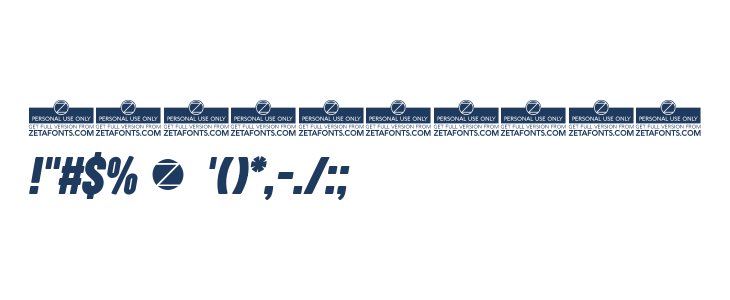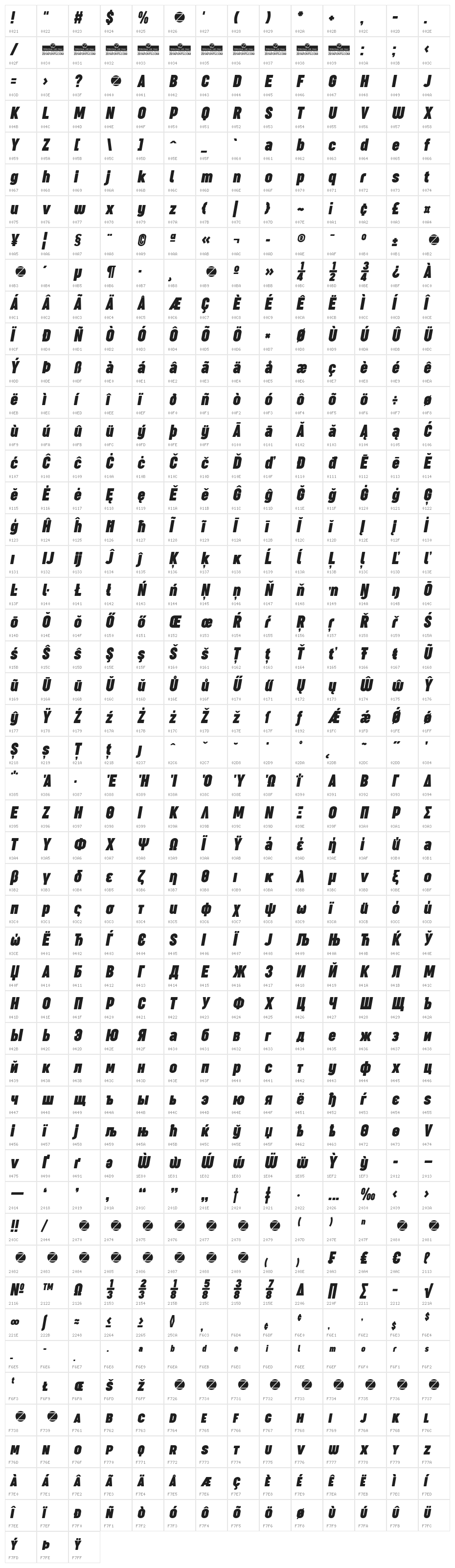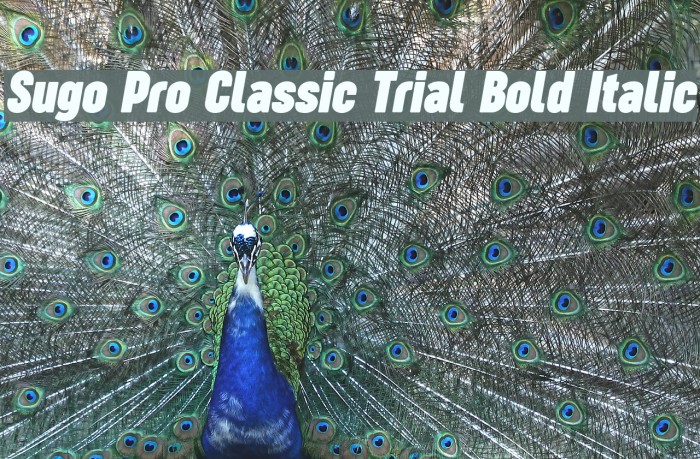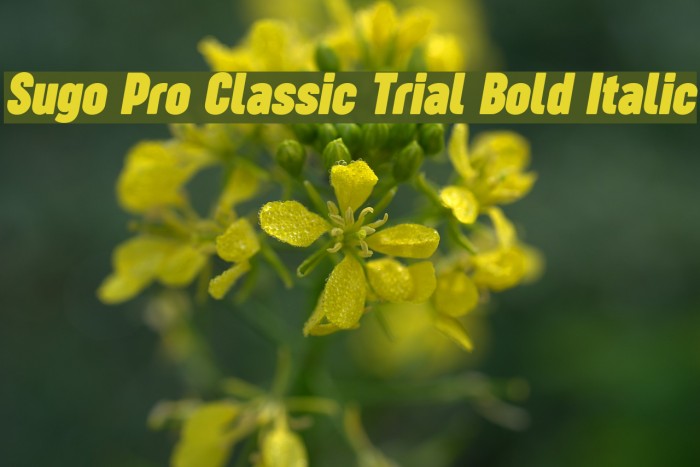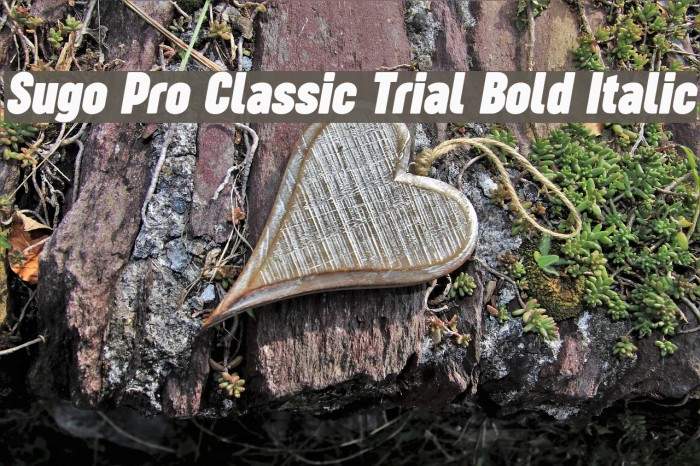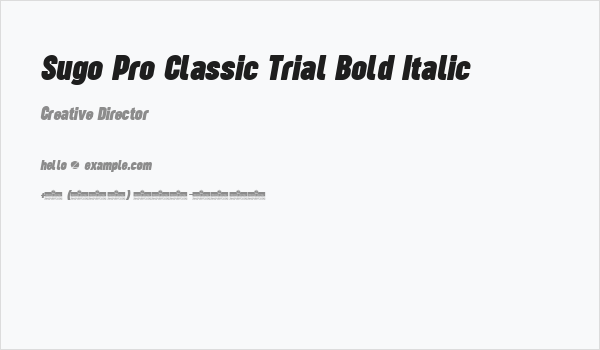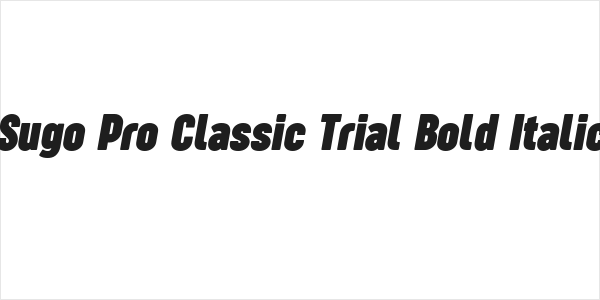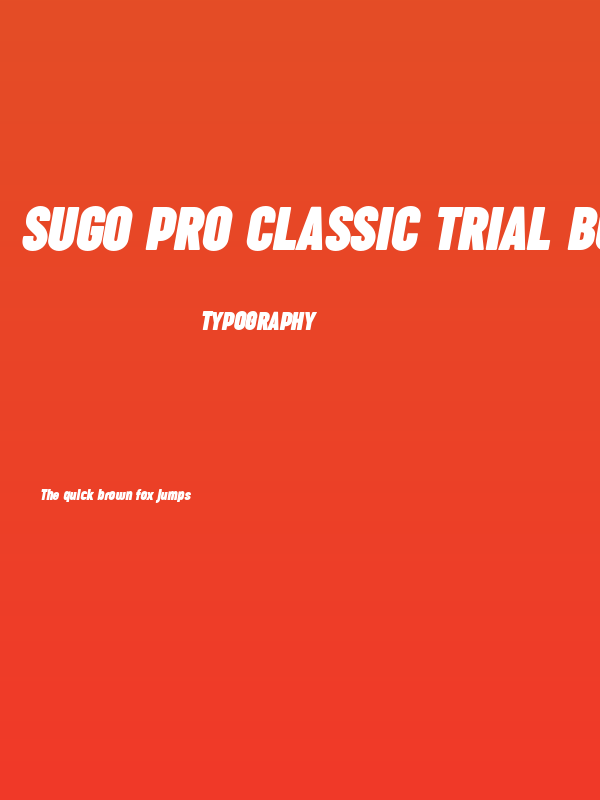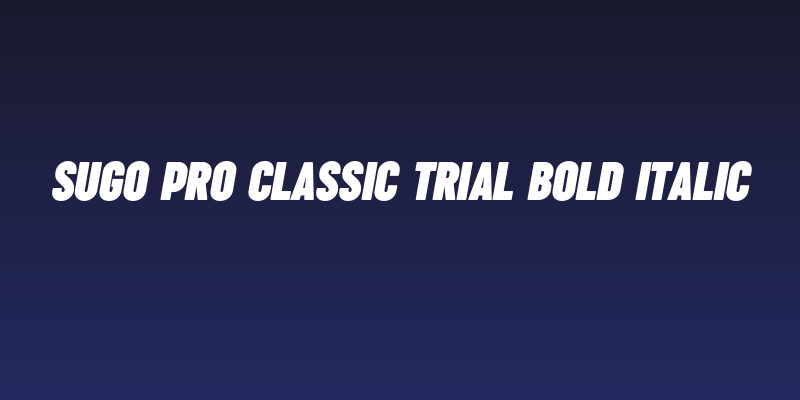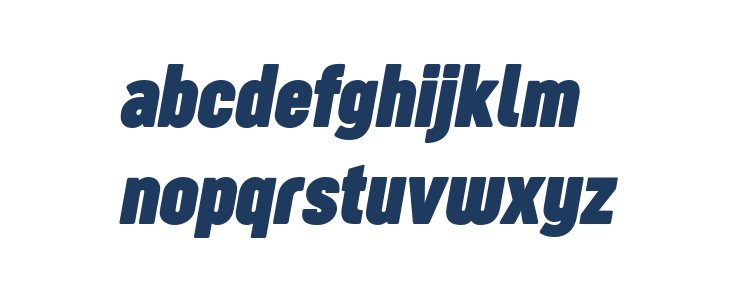
Sugo Pro Classic Trial Bold Italic Font
Sugo Pro Classic Trial Bold Italic Description
This typeface features a bold and italic style, characterized by its strong, dynamic presence. The uppercase and lowercase letters are designed with a forward slant, giving a sense of motion and energy. The strokes are thick and consistent, providing a robust and impactful appearance. The font maintains a modern aesthetic with clean lines and a slightly condensed width, making it suitable for attention-grabbing headlines. The character spacing is tight, enhancing its boldness and making it ideal for impactful statements. The special characters are designed to match the overall style, ensuring consistency across all glyphs.
| Proposed Projects | Ideal for branding, advertising, posters, and any project requiring a strong visual impact. |